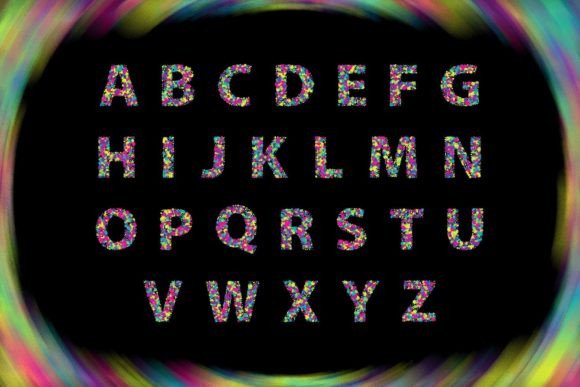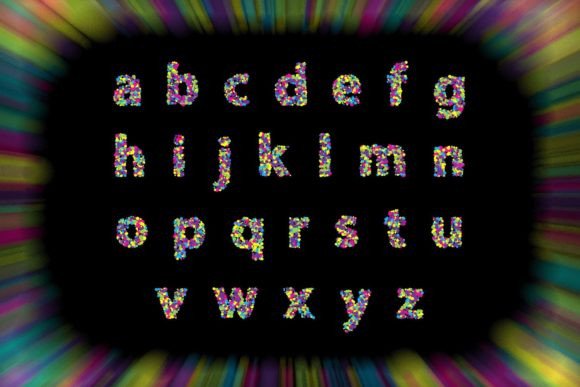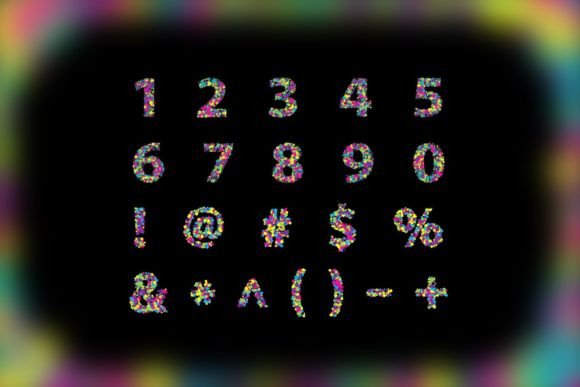
Introducing Colorblind Font: The Trendy and Fancy Color Font to Brighten Your Creations
Are you tired of using the same old fonts in your designs? Look no further! Colorblind Font is here to revolutionize the way you add color to your creations. This stunning color font is compatible with popular design software such as PhotoShop, Illustrator, Silhouette, and Inkscape, making it the perfect addition to your design toolkit.
What is Colorblind Font?
Colorblind Font is a gorgeous typeface that brings color into your designs like never before. As a color font (Opentype-SVG), it allows you to add a pop of color to your text, making your creations stand out from the crowd. With its trendy and fancy design, Colorblind Font is perfect for designers, crafters, and anyone looking to add a touch of personality to their work.
Key Features of Colorblind Font
- Color Font (Opentype-SVG): Colorblind Font is a cutting-edge color font that allows you to add color to your text.
Benefits of Using Colorblind Font
So, why choose Colorblind Font for your designs? Here are just a few benefits:
- Add a Pop of Color: With Colorblind Font, you can add a burst of color to your text, making your designs more eye-catching and engaging.
- Stand Out from the Crowd: Use Colorblind Font to differentiate your designs from others and make them more memorable.
- Easily Customizable: With its compatibility with popular design software, you can easily customize Colorblind Font to suit your design needs.
Tips and Tricks for Getting the Most out of Colorblind Font
Here are some expert tips to help you get the most out of Colorblind Font:
- Experiment with Different Colors: Try out different color combinations to find the perfect look for your design.
- Play with Font Sizes: Experiment with different font sizes to add visual interest to your design.
- Pair with Other Fonts: Combine Colorblind Font with other fonts to create a unique and eye-catching design.
Colorblind Font is a game-changing color font that will brighten up any product. With its trendy and fancy design, wide compatibility, and ease of use, it’s the perfect addition to any design toolkit. Whether you’re a designer, crafter, or simply looking to add some personality to your work, Colorblind Font is sure to impress. So why wait? Download Colorblind Font today and start creating stunning, colorful designs!